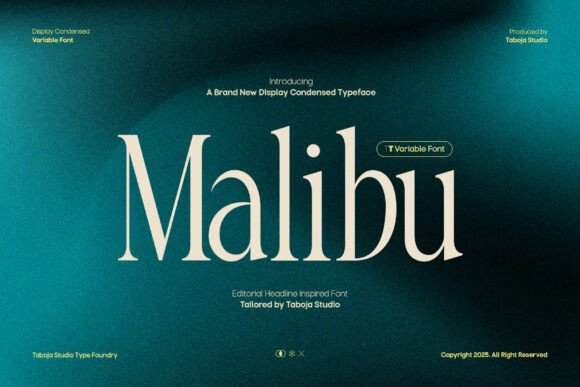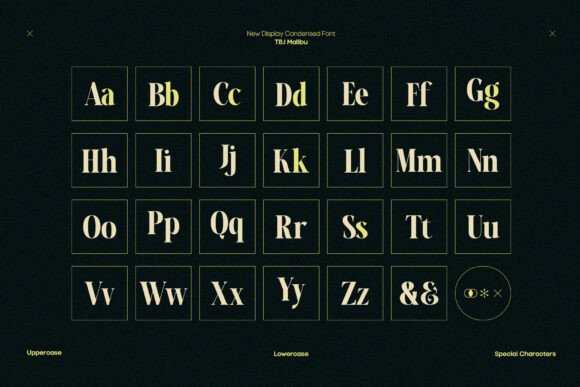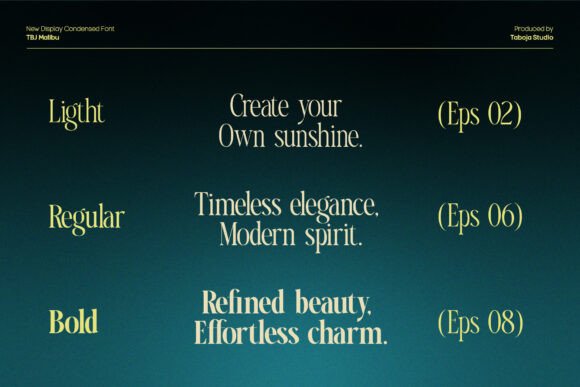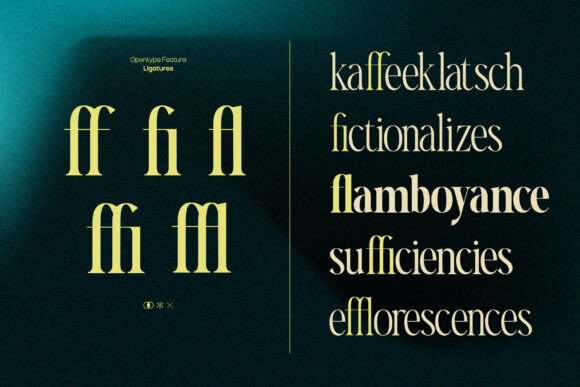
Malibu Font: Elegant Condensed Display Font for Modern Branding
About the Malibu Font
The Malibu Font is here to transform your projects with its distinctive character and style. Malibu is a refined condensed display font that brings a modern yet timeless aesthetic to the world of typography. this typeface is crafted to meet the needs of contemporary designers who seek both sophistication and functionality in their projects.
With its slim, tall proportions and clean yet expressive form, TBJ Malibu delivers an unparalleled balance between elegance and adaptability. This font is designed to elevate branding, editorial layouts, digital interfaces, and other creative applications with its commanding presence.
Malibu offers great flexibility with three different variable font styles: Light, Regular, and Bold. Each style is carefully crafted to provide a wide spectrum of visual impact
The variable font feature allows designers to fine-tune width and weight adjustments, ensuring precise control over typography in any design context. Whether used in luxury branding, editorial layouts, digital interfaces, fashion campaigns, or packaging design, TBJ Malibu adapts seamlessly to diverse creative needs.